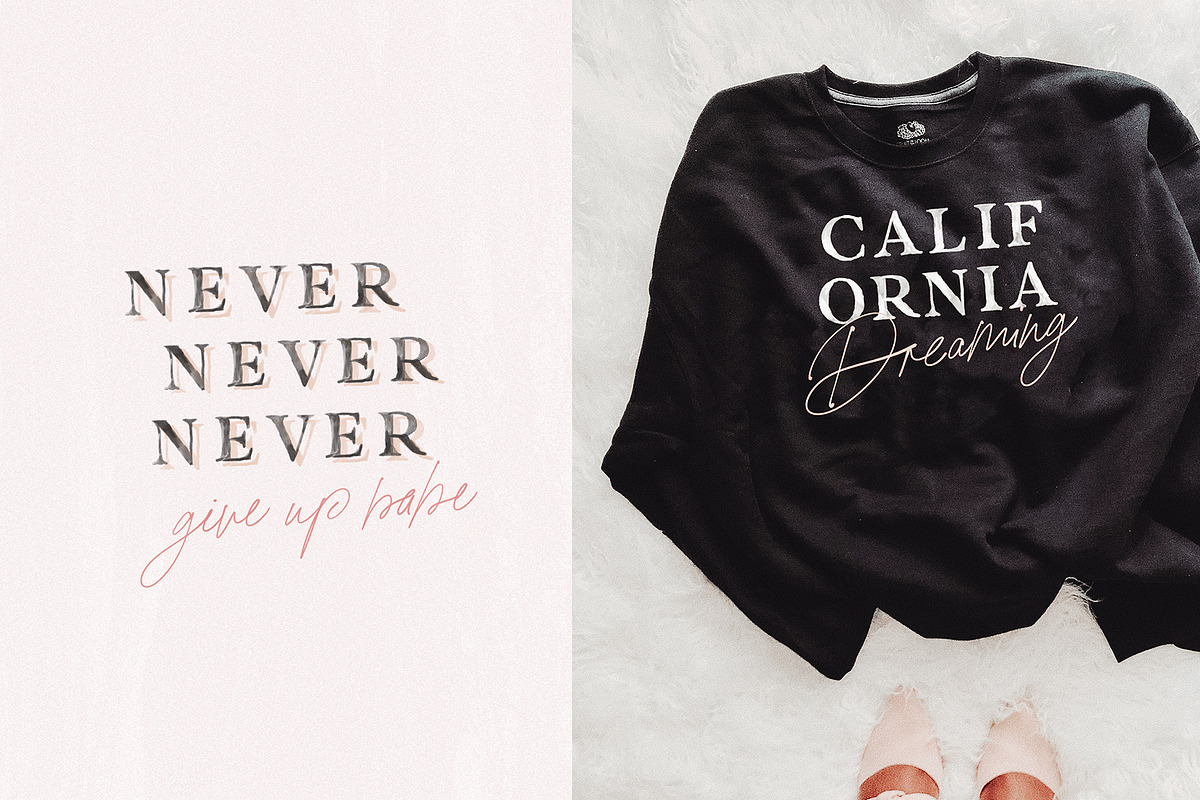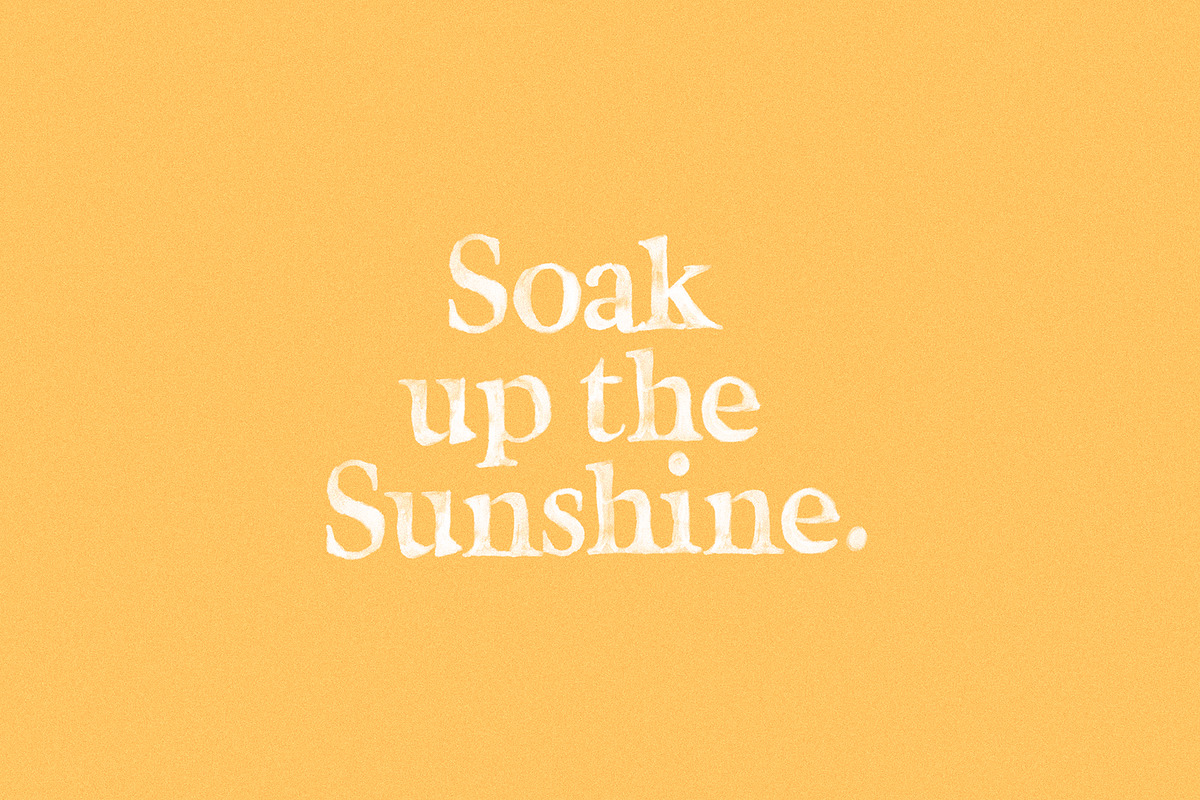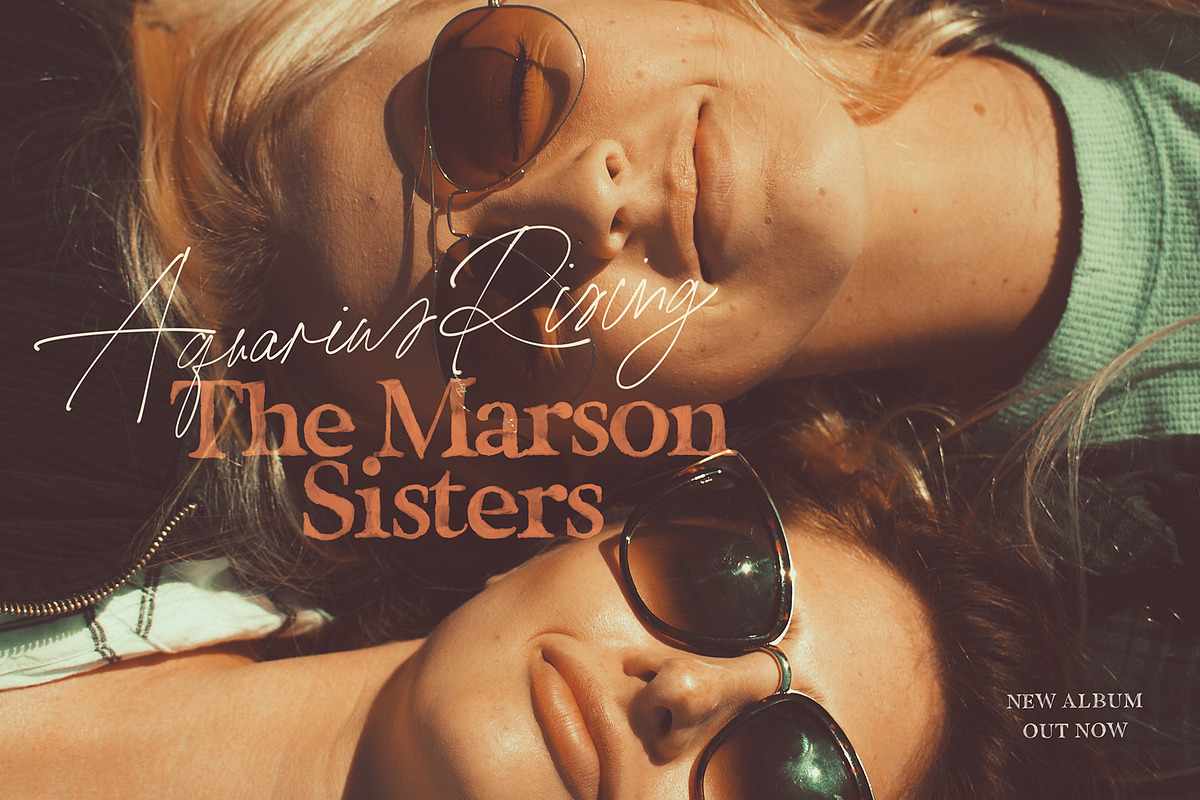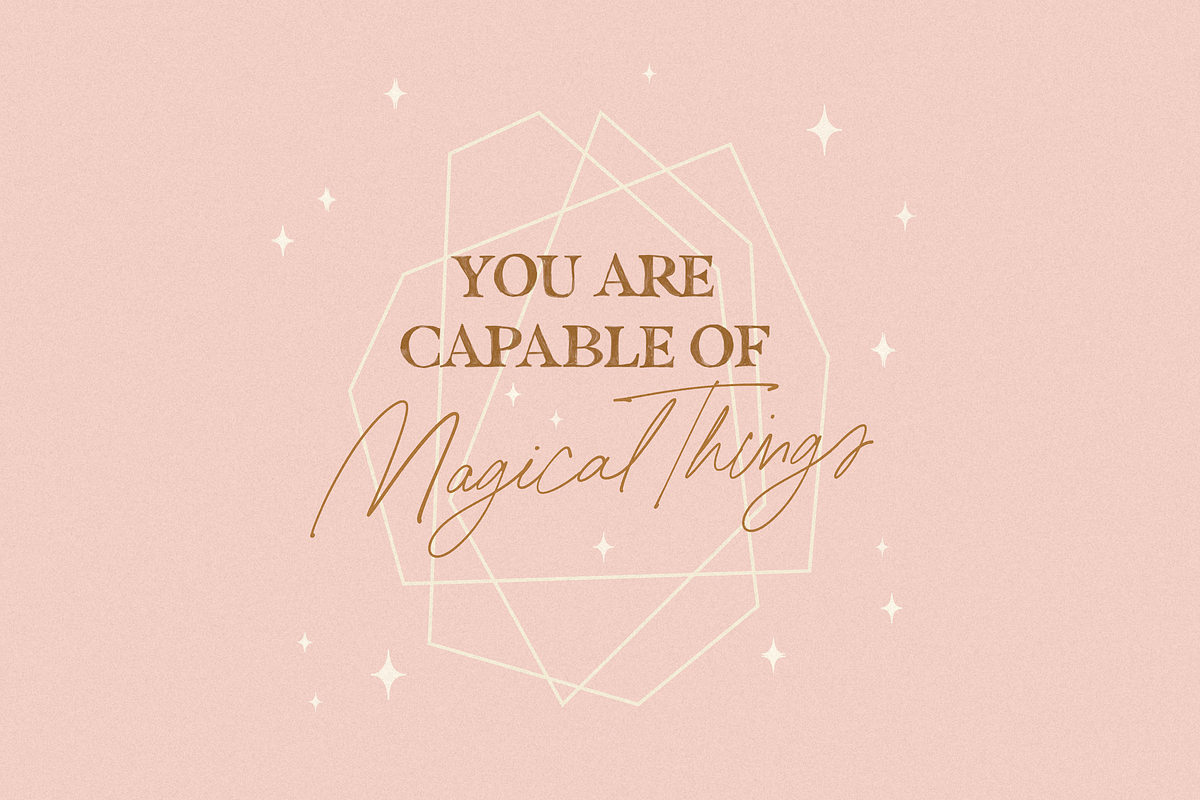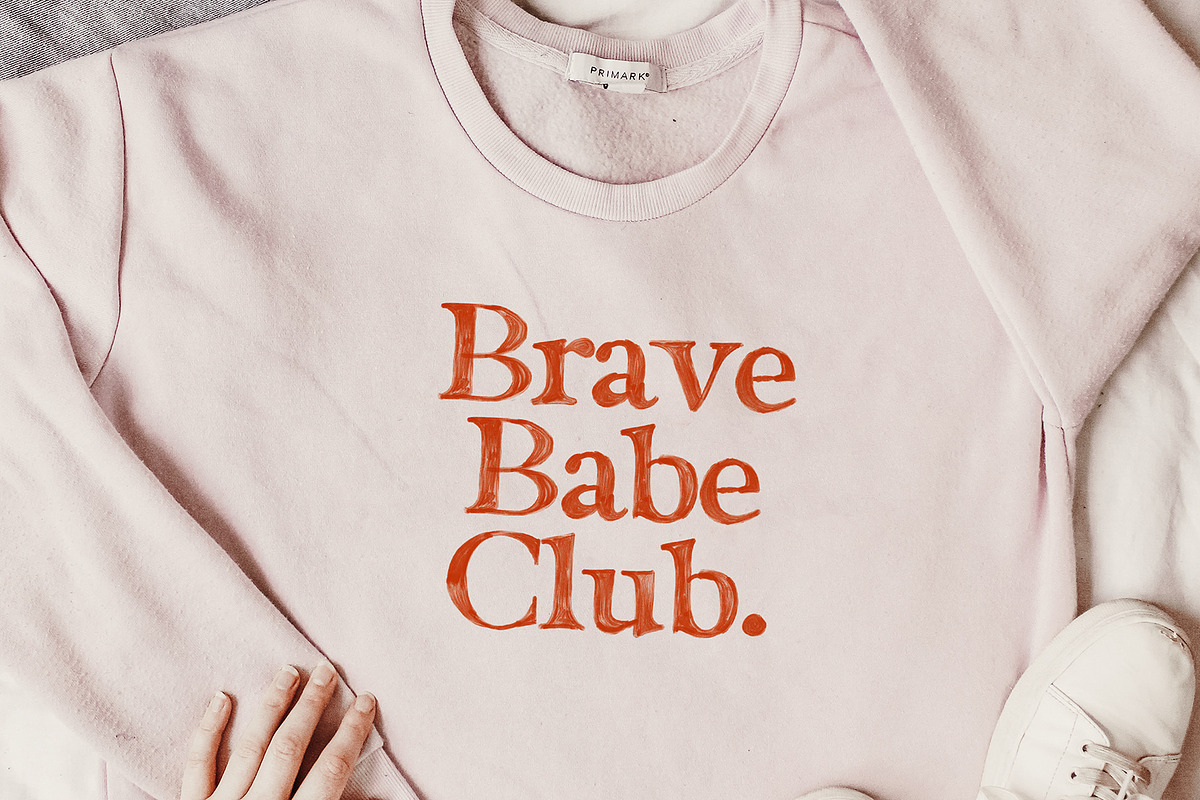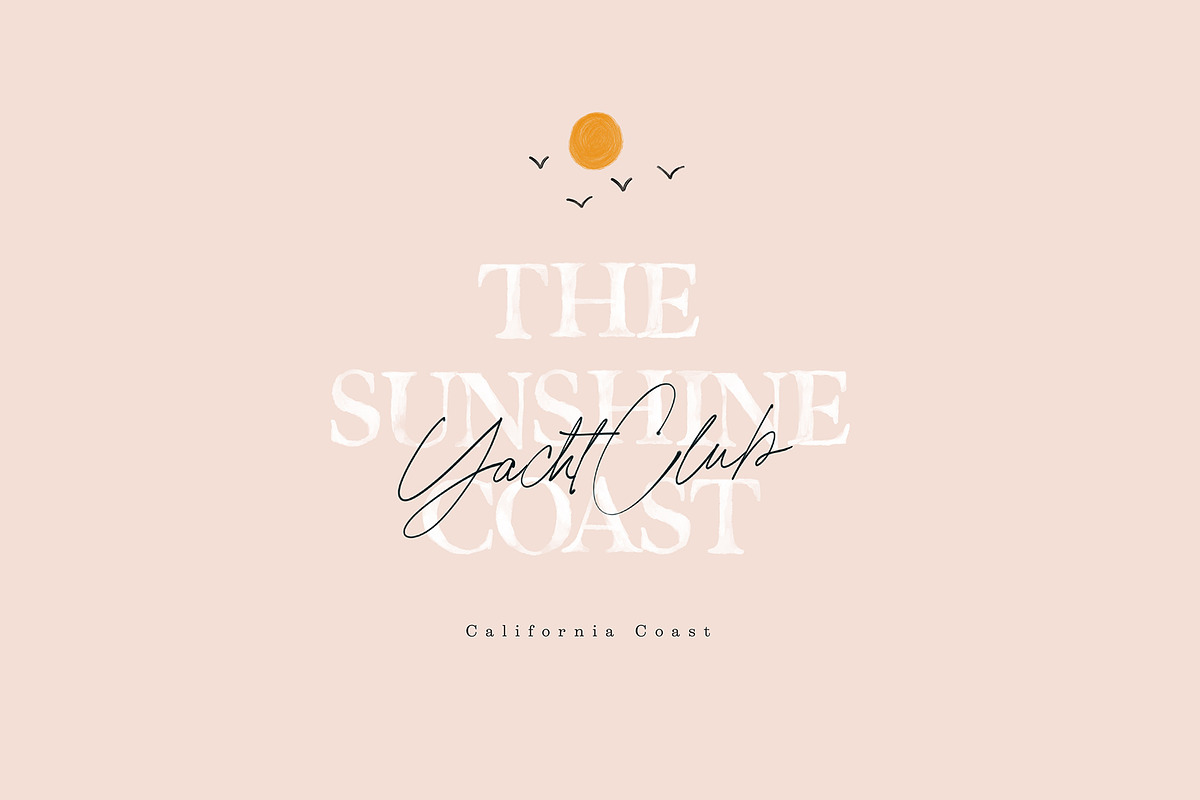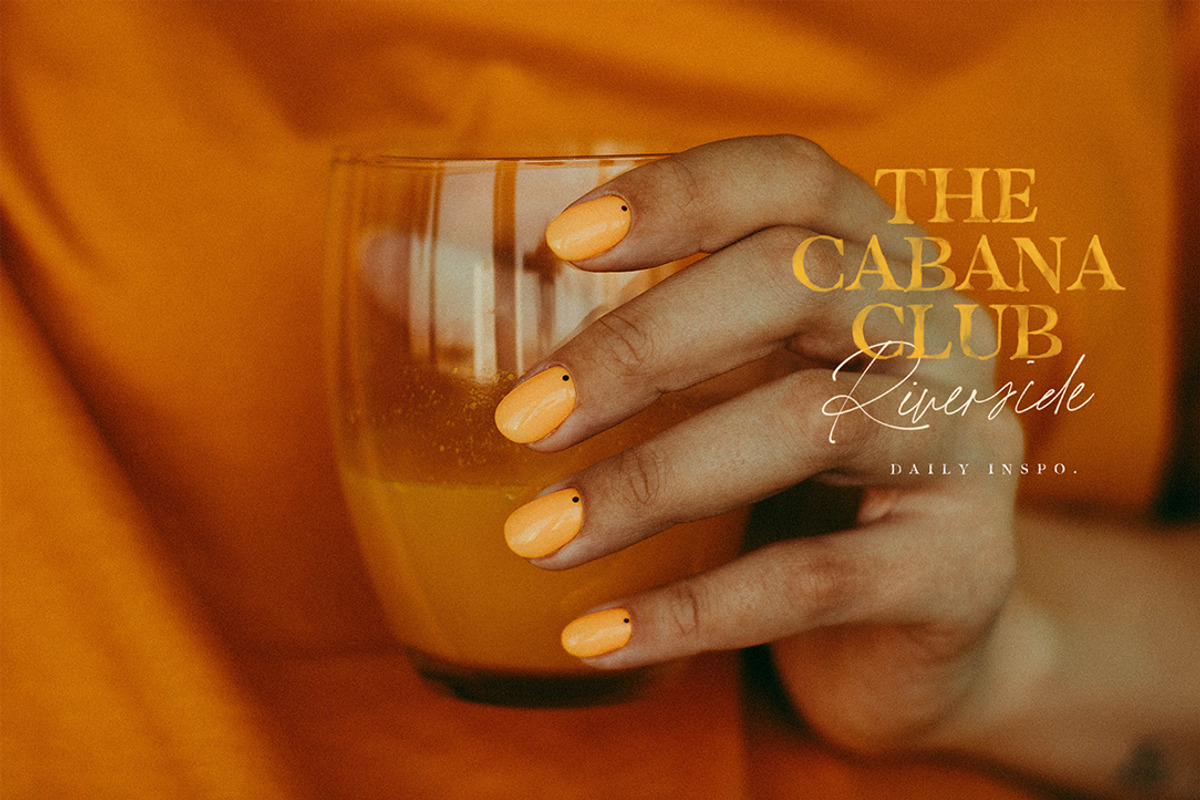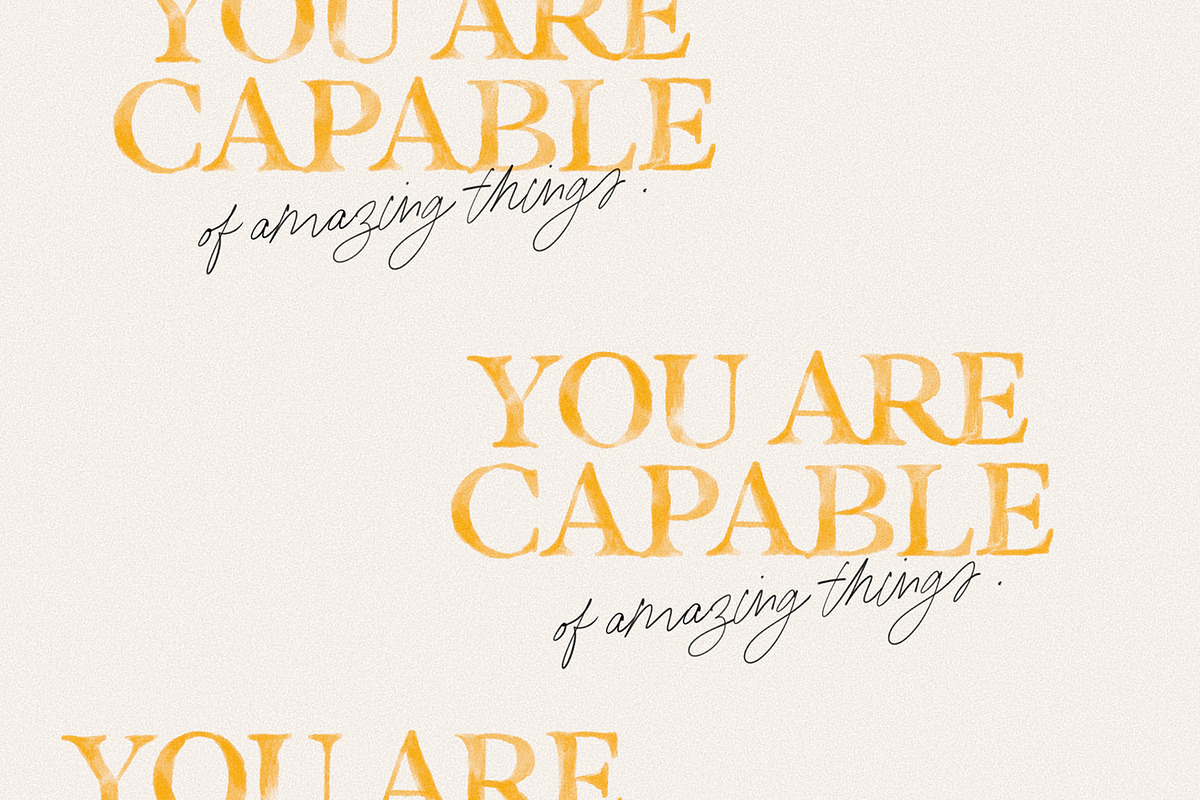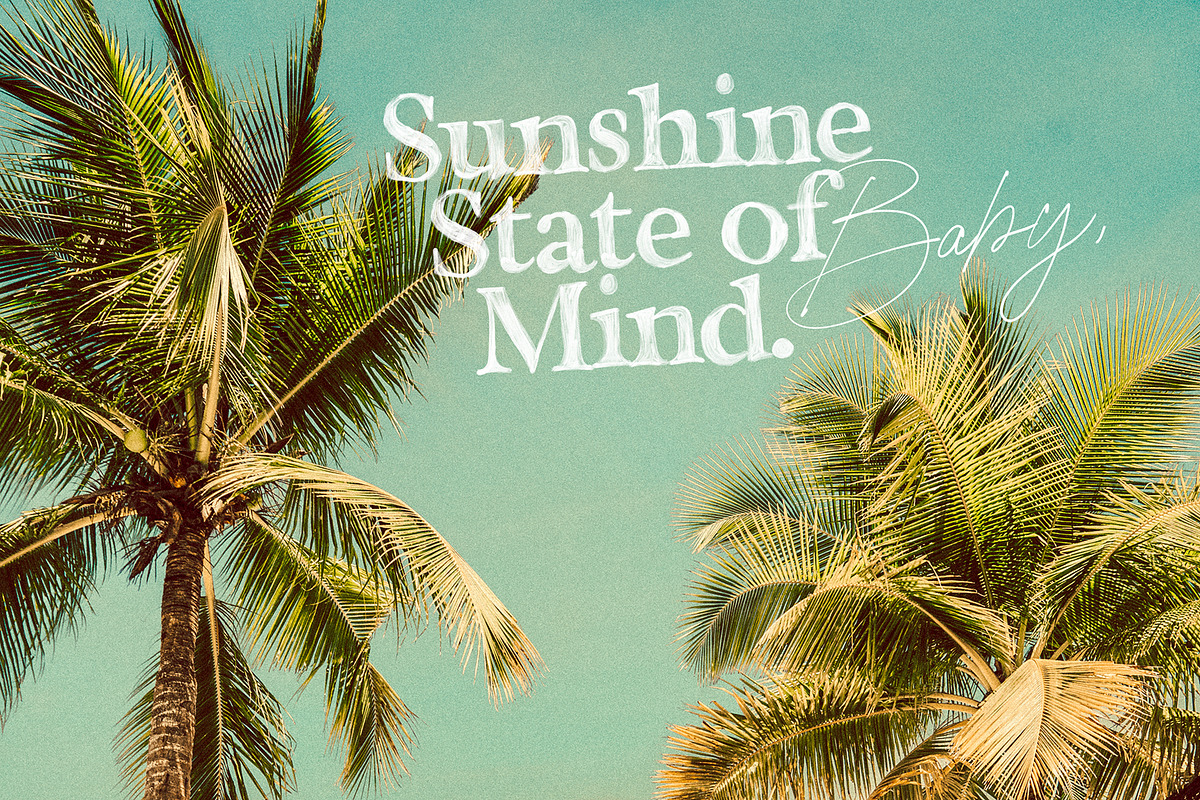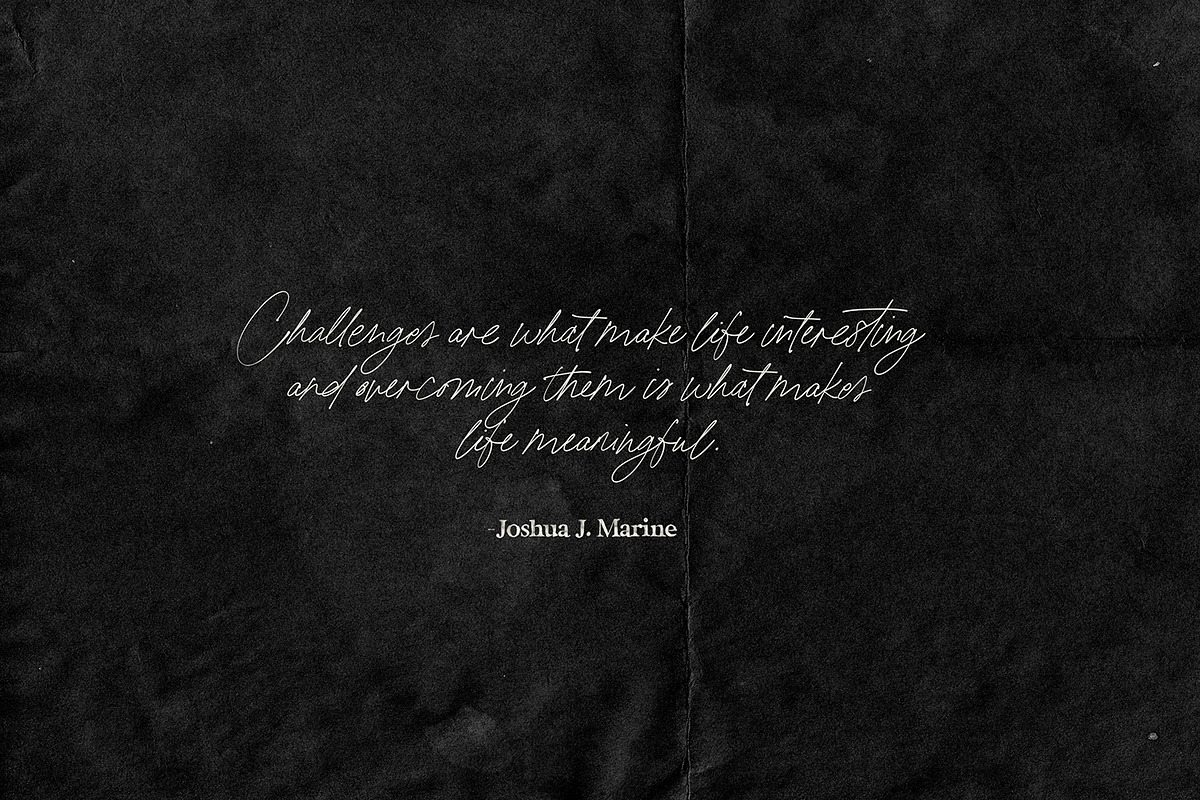
California Palms Fonts & Graphics
Slap on those sunnies and grab an umbrella drink - while you flip through the new California Palms Font & Graphics Collection :). The Collection consists of SVG and regular fonts as well as a large selection of trending summer-themed graphics. Have a look through the previews above to get inspired with what you can make and to get those creative juices flowing. To showcase the versatility of the pack - I've tried to include a wide variety of design suggestions for you - so be sure to scroll through them all - I'm sure you'll be able to produce even more exciting ideas!
Real Watercolour and marker pen texture of the SVG Serif fonts add and extra authenticity that regular fonts just can't offer.
A stylish script as both an SVG and Regular font, compliments both Serifs beautifully - but is just as gorgeous when used on its own.
- California Palms Script Font ( SVG and Regular Opentype Font )
- California Palms Watercolour Serif Font ( SVG font only )
- California Palms Marker Serif Font ( SVG and Regular Opentype Font )
- The Summer Doodles - 65 graphic elements ( as seen in previews above ) in various easy to use formats.
MORE DETAIL :
- The Script is available as both a bitmap OpenType SVG font, and Regular Opentype font. - The Script includes a large selection of automatic ligatures ( 74 in total ) - they make your type look more like natural handwriting rather than a font. The script has uppercase, lowercase, all punctuation and numerals. Test drive the font by typing your phrase/ text into the text preview box on this page.